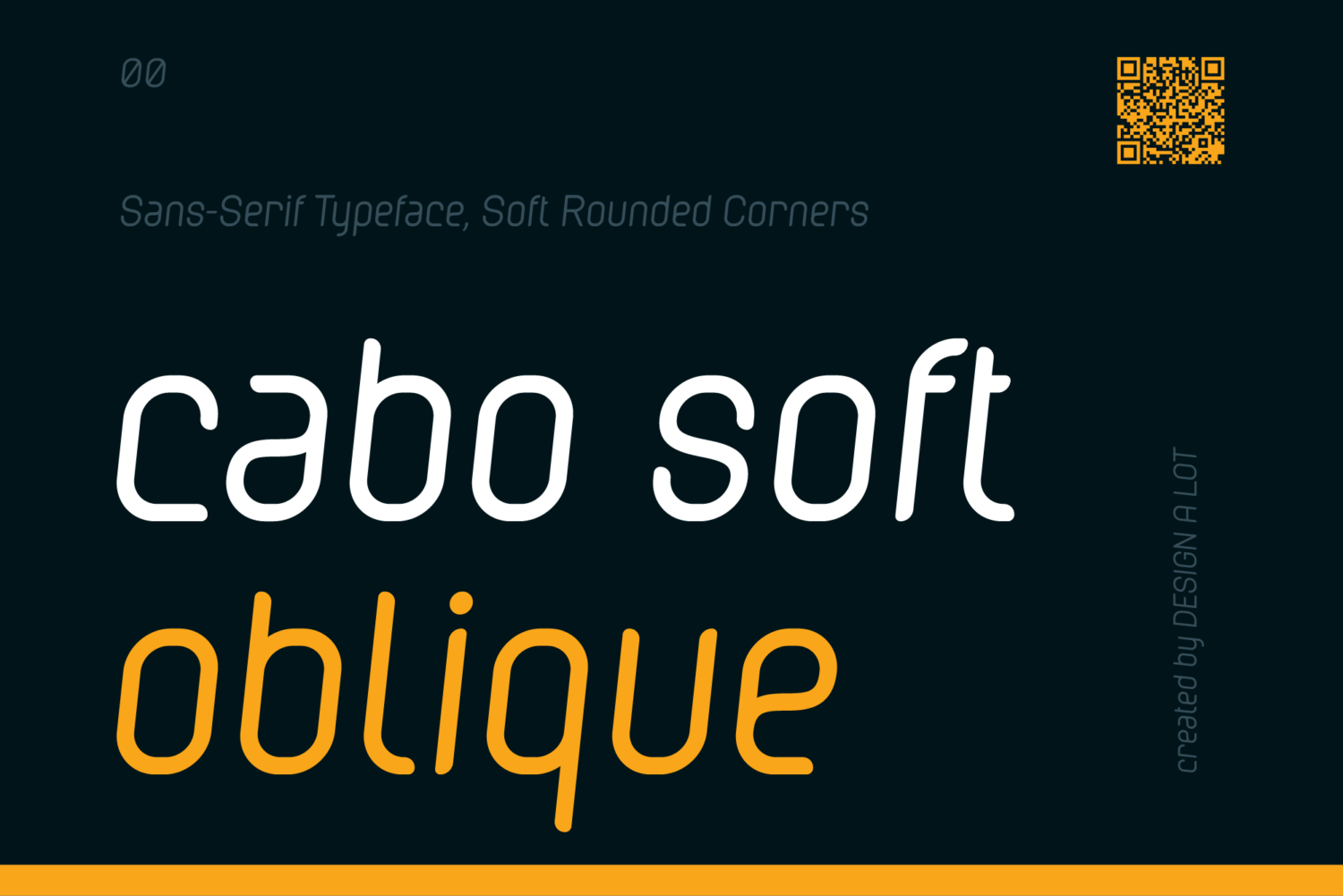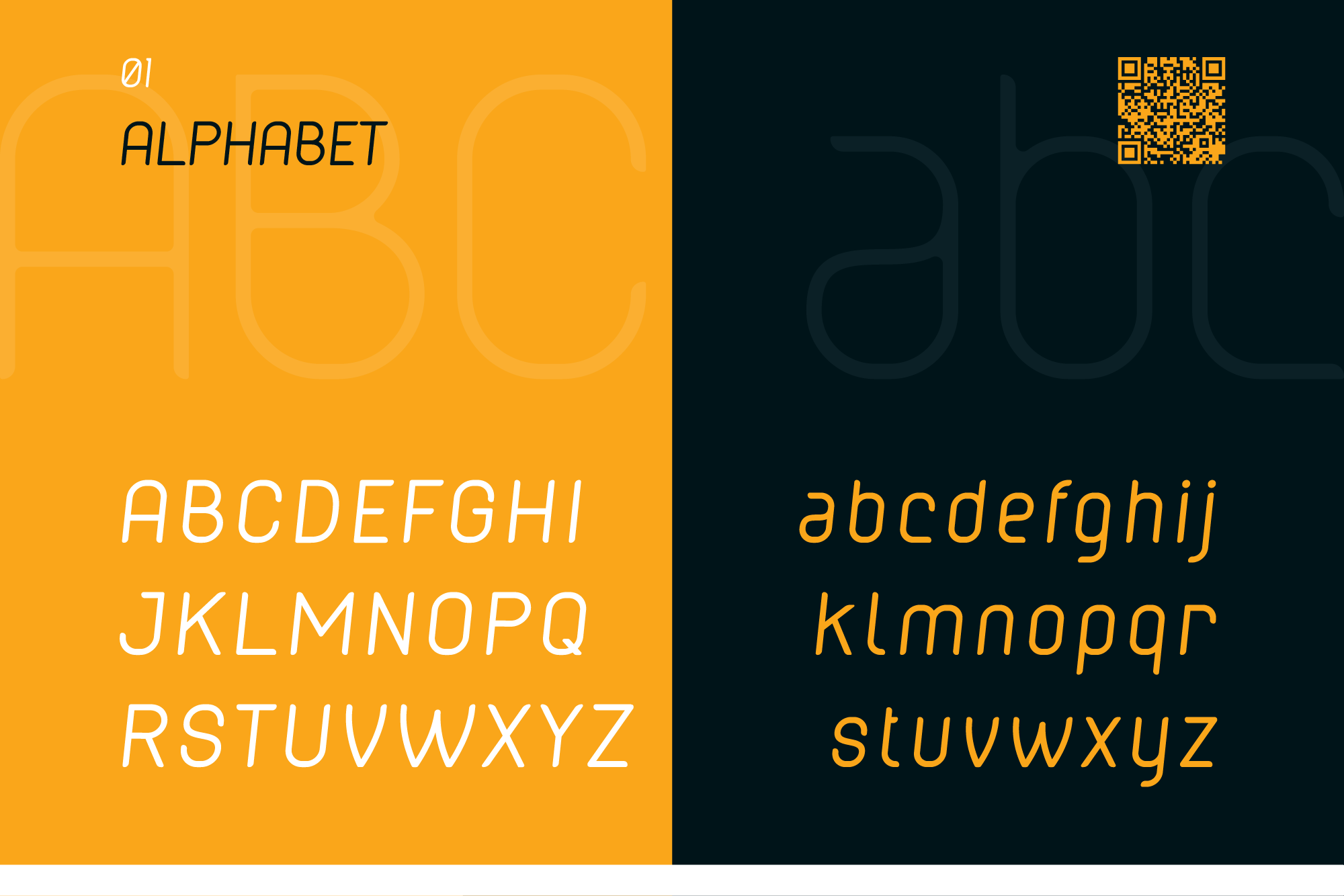
Cabo Soft Oblique Font
Introducing Cabo Soft Typeface – the upgraded version of our beloved Cabo Rounded Typeface, which first made waves back in 2015. We’re thrilled to present our latest typeface, where we’ve made numerous upgrades and updates, taking it to a whole new level of creativity and elegance!
This is the Cabo Soft Oblique Font style that is extracted from the complete typeface, which is intended to be sold separately for creatives that just want to purchase one style.
Each of the style of our Cabo Soft Typeface includes a unique design with a soft and rounded style. It includes the entire letters, numbers, glyphs and accents of the Latin alphabet, like this:
• Basic alphabet in uppercase and lowercase: Aa Bb Cc Dd Ee Ff Gg Hh Ii Jj Kk Ll Mm Nn Oo Pp Qq Rr Ss Tt Uu Vv Ww Xx Yy Zz.
• Numbers: 0 1 2 3 4 5 6 7 8 9.
• Glyphs: !?@#$%^&* ¡¿.:,;[]{}\/|<> ©®§ß€¥£¢ °¹²³ªº‹›«»≤≥+× =_-–—•…“‘’“”„‘‚.
• Accents: Á  À Ä Å Ã Ă Æ Ç É Ê È Ë Í Î Ì Ï Ñ Ó Ô Ò Ö Õ Ø Œ Š Ș Ț Û Ú Ù Ü Ý Ÿ Ž á â à ä å ã ă æ ç é ê è ë í î ì ï ı ñ ó ô ò ö õ ø œ š ș ț ú û ù ü ý ÿ ž.
• And alternates for the following glyphs: a b c d e f g k p q r t w x z æ œ Q V W X Z 1 2 3 4 7 @ #.
All of the fonts available in this typeface can adapt to any style and are perfect with written text, headlines, logo design, branding and more.